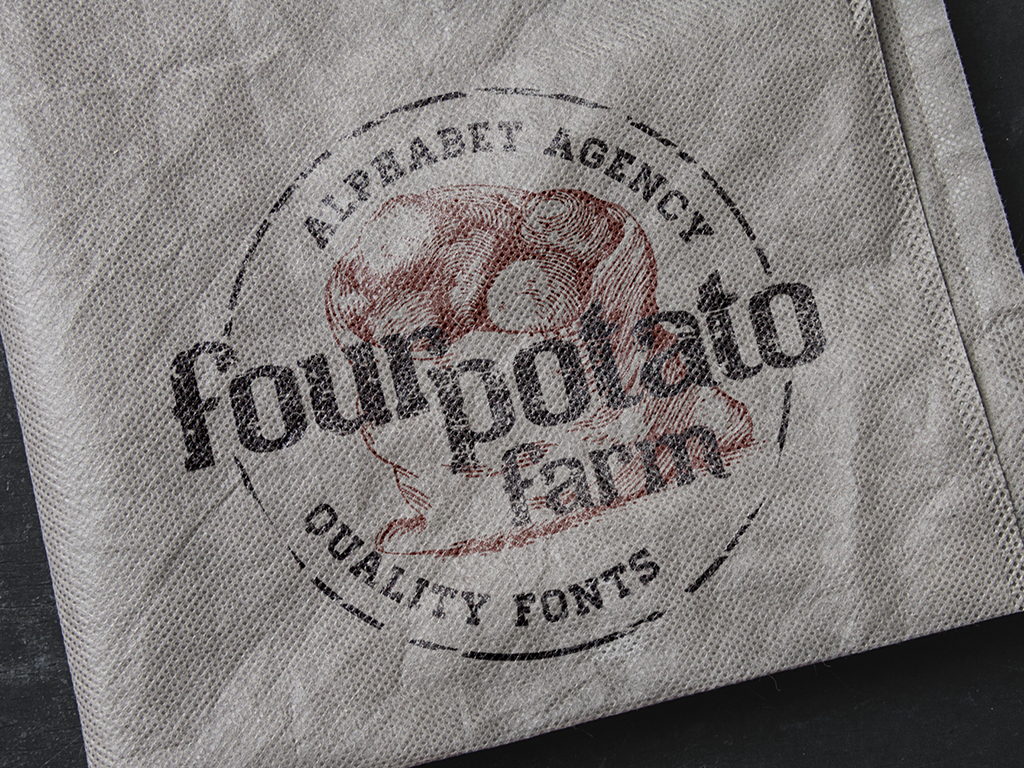
Four Potato Farm Font
This font offers a ideal design solution to so many design tasks today. The fantastic rustic style expressed in this font is a great investment for your designer toolkit!
The font contains 171 character glyphs with over 3000+ kerned pairs.